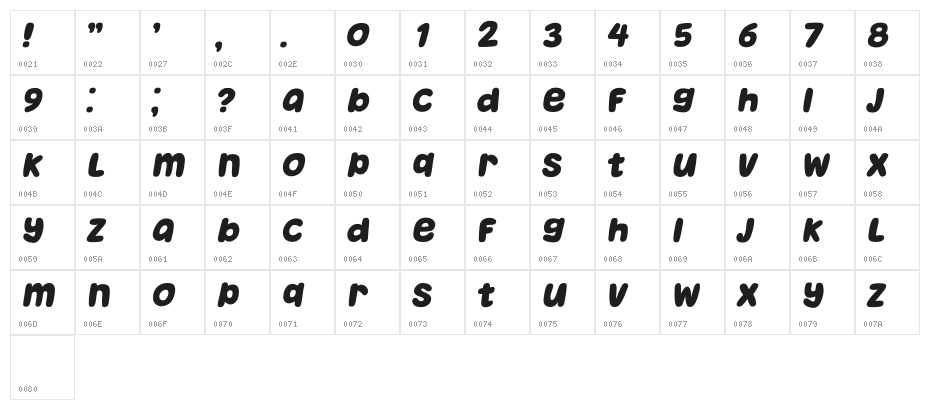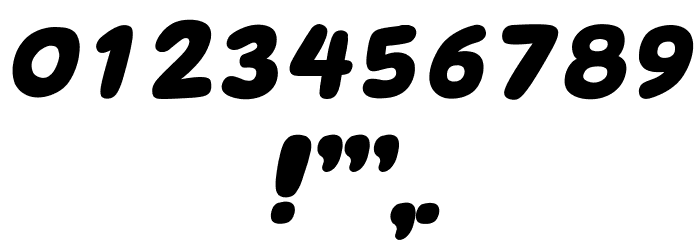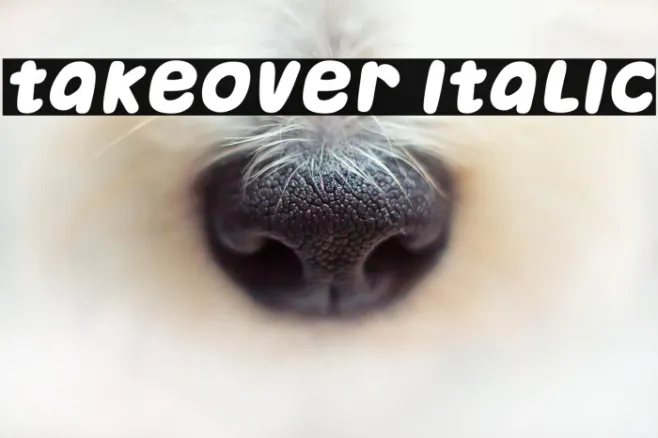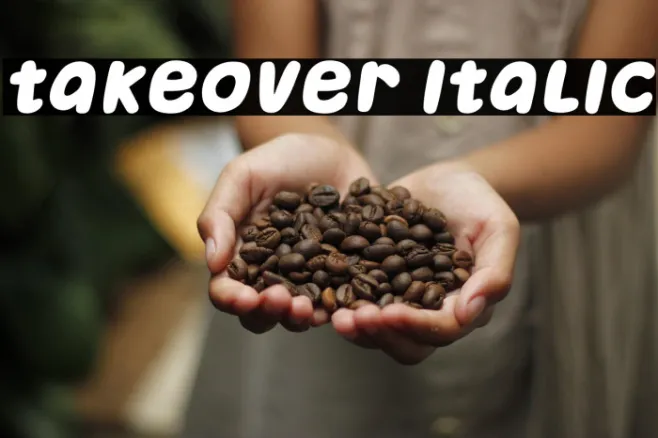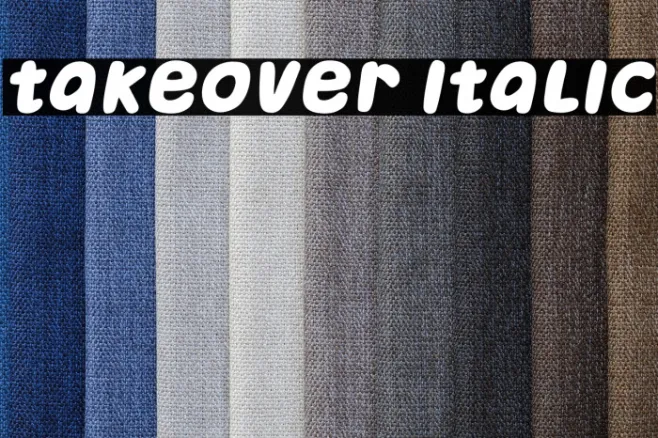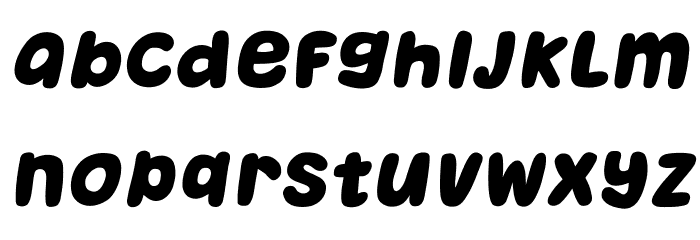
Takeover Italic Font
Takeover Italic Description
This playful and bold font features rounded, bubble-like characters with a consistent thickness throughout. The letters are slightly italicized, giving them a dynamic and energetic appearance. The font's whimsical style is accentuated by its smooth curves and lack of sharp edges, making it approachable and friendly. The numbers and special characters maintain the same playful aesthetic, ensuring consistency across all elements. Its bold presence makes it ideal for capturing attention while maintaining a sense of fun and creativity.